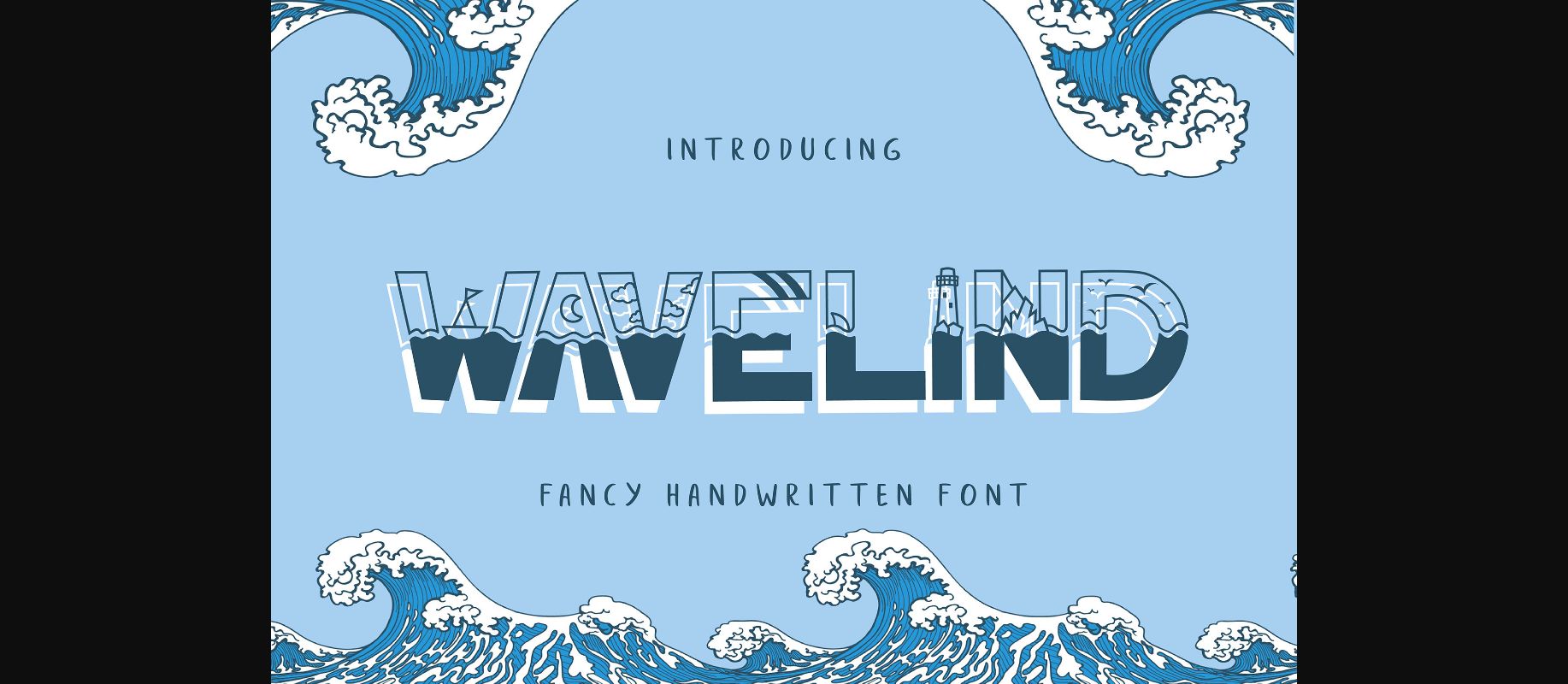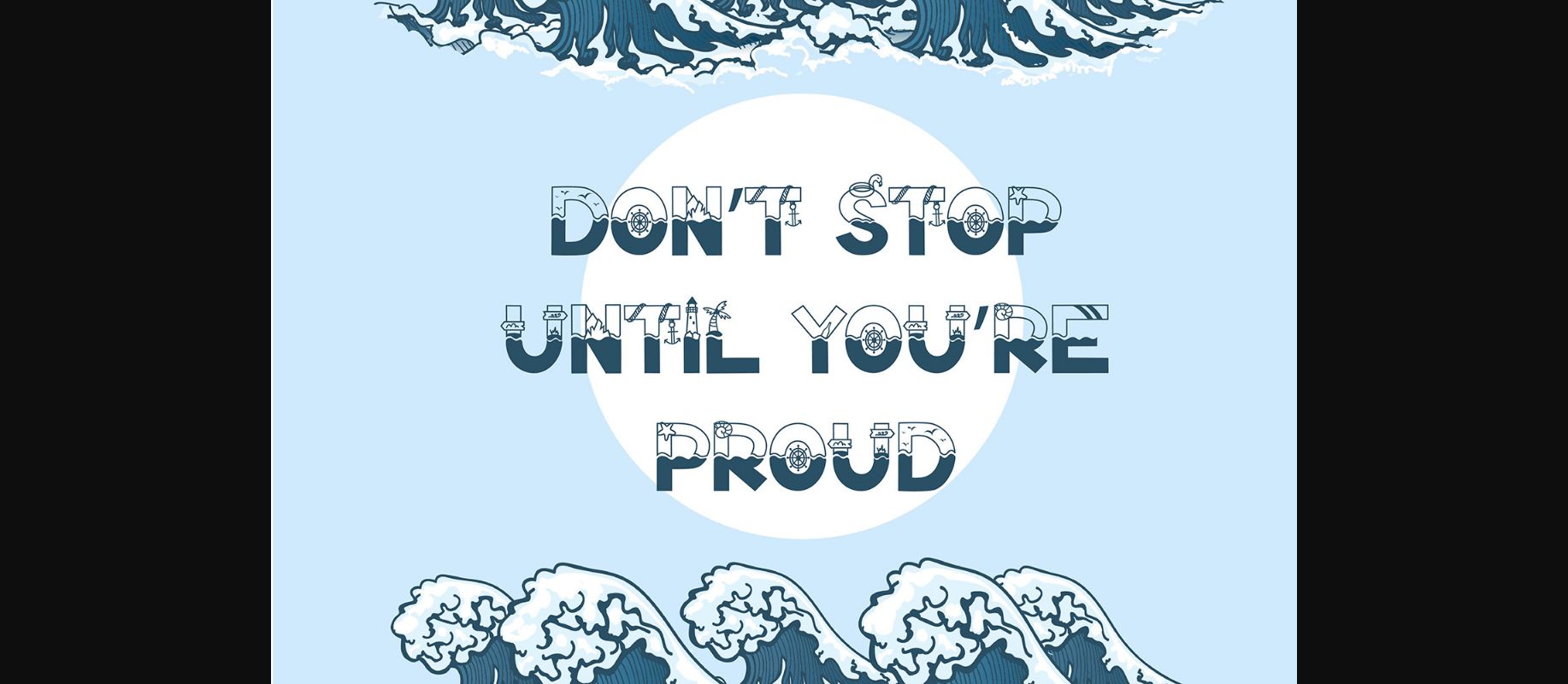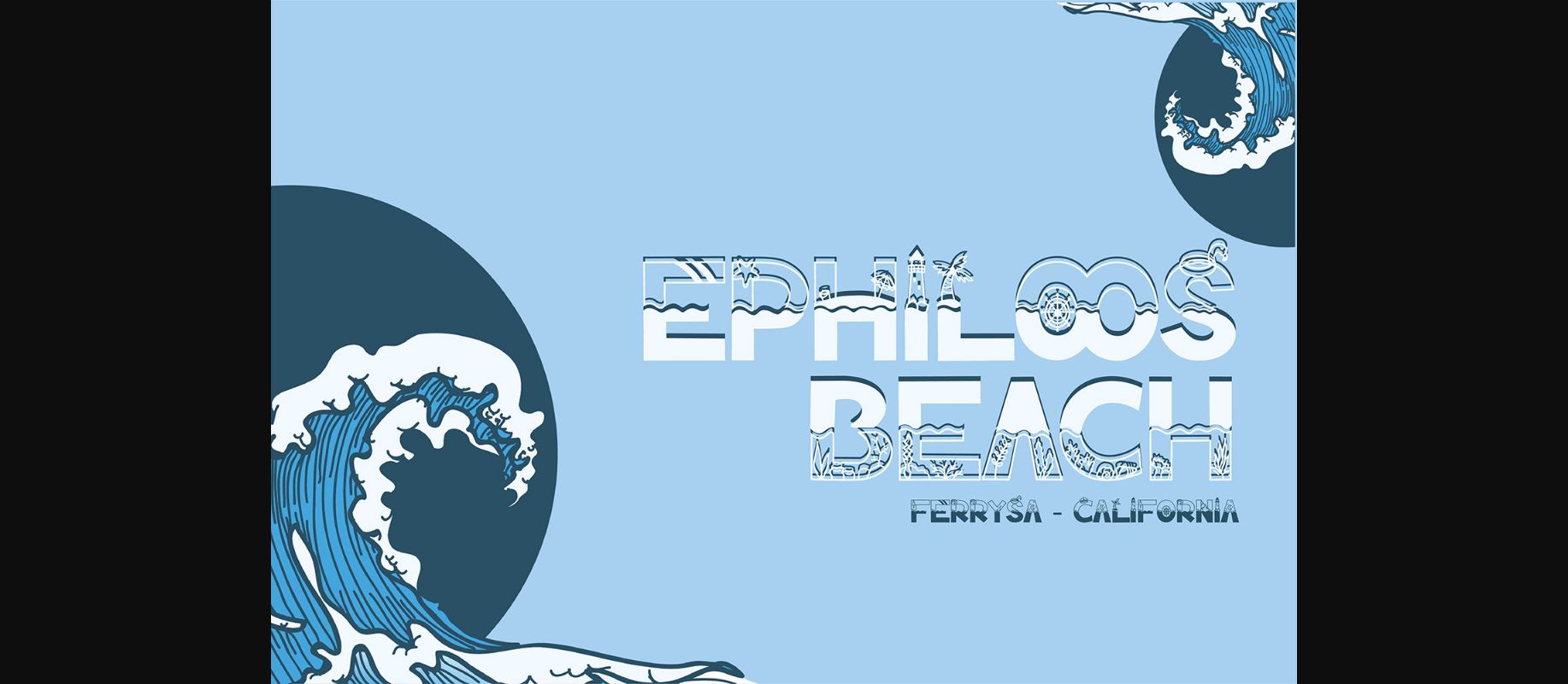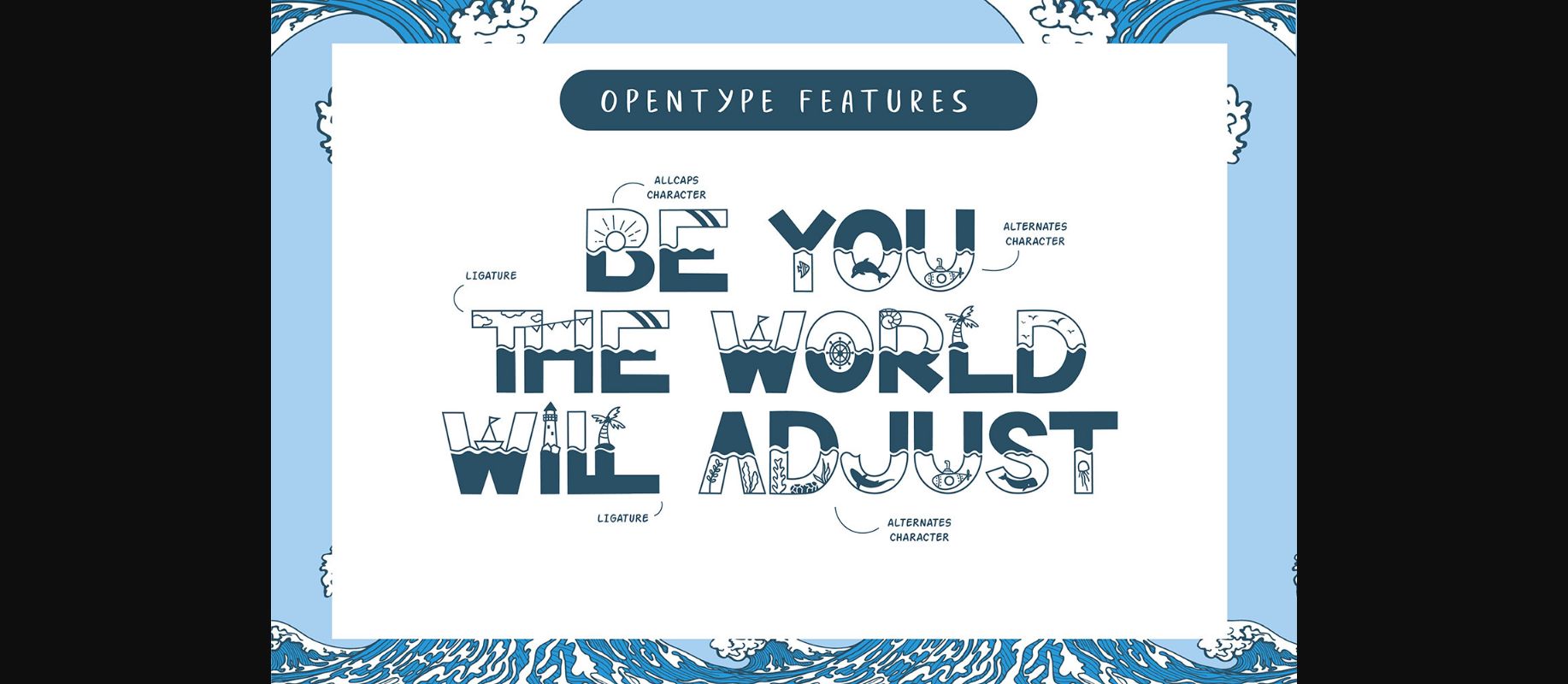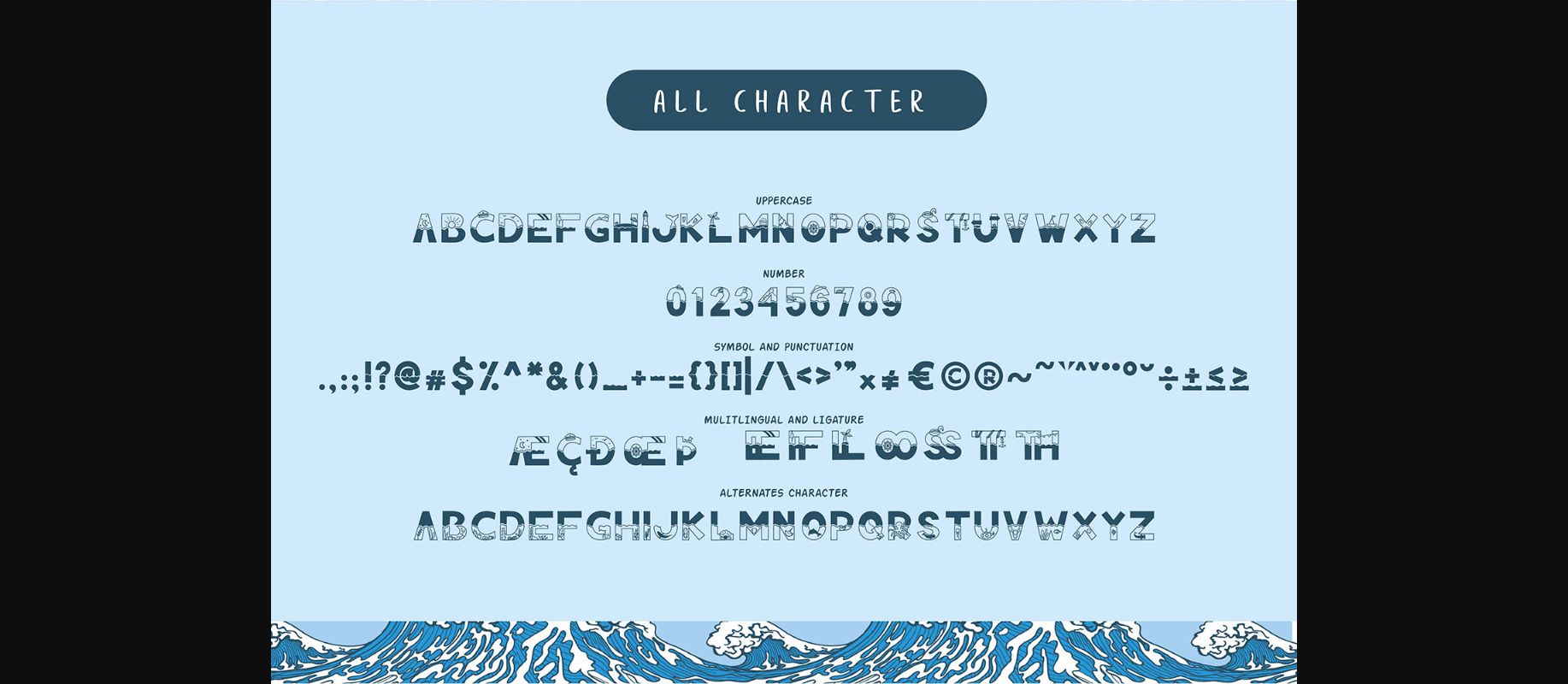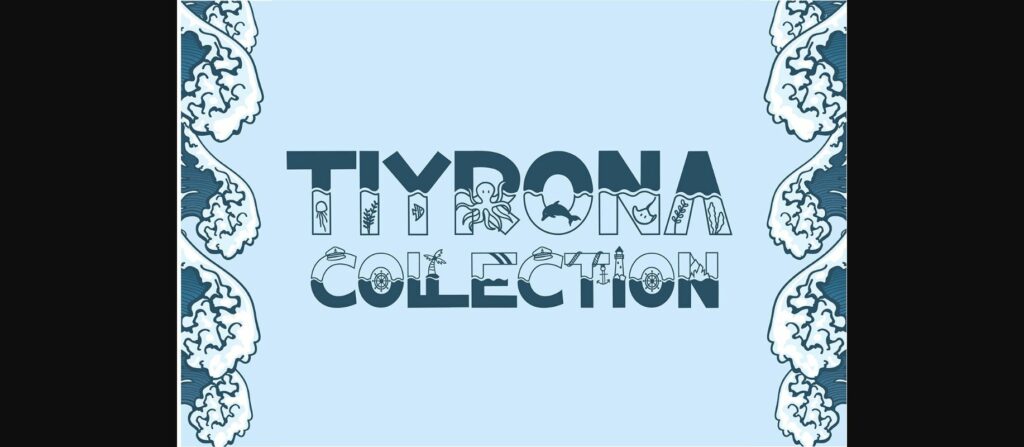
Wavelind Font
About Wavelind Font
**Wavelind | Fancy Decorative Font** with a calligraphy style. It looks beautiful on invitations, greeting cards, branding materials, business cards, quotes, posters, and more!